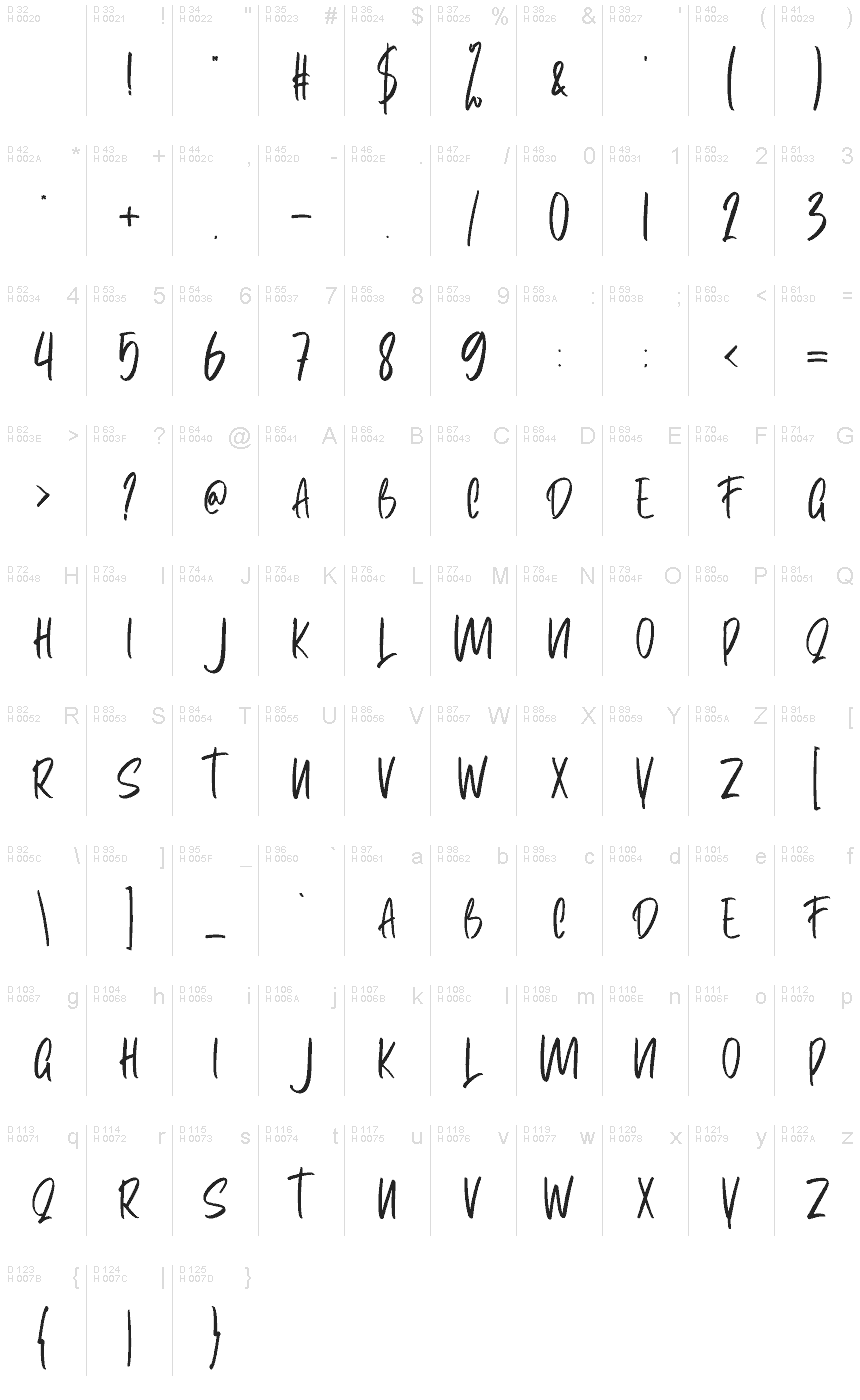
Chisila
Chisila font is a condensed handwritten font designed by Skiiller Studio. This expressive and energetic modern script offers a casual aesthetic with a relaxed style suitable for many design projects. Its loose shapes are dynamic yet harmoniously follow one another giving the typography work both fluency and rhythm.
Free to download, add Chisila to your logotype, advertising, branding project, or book cover. Develop catchy movie titles and series titles as well as packaging designs using this beautiful handwriting typeface. Magazine covers, comic designs, quotes design, and any promotional material can be both appealing and memorable to viewers when Chisila is used in finally crafting them!